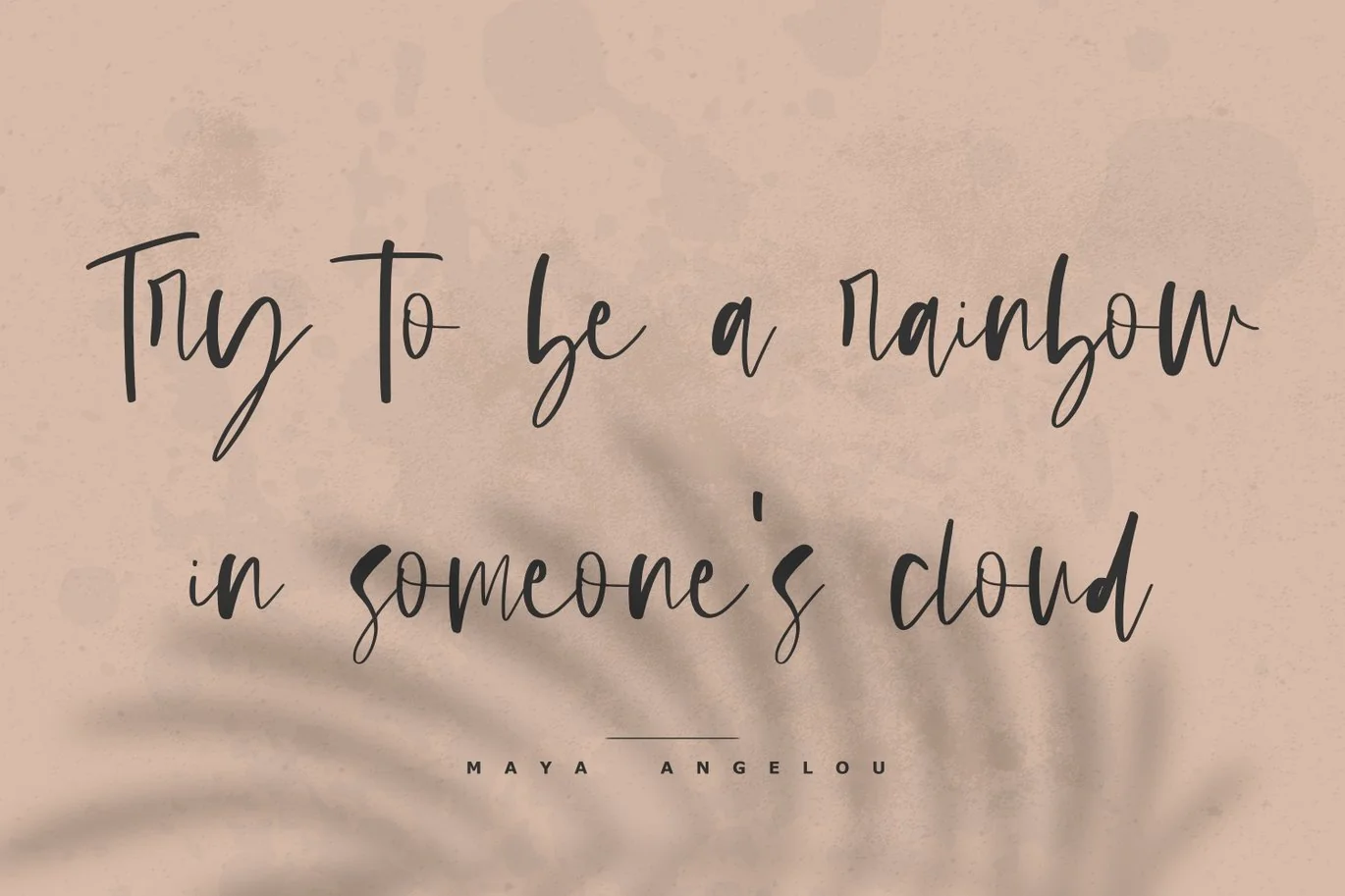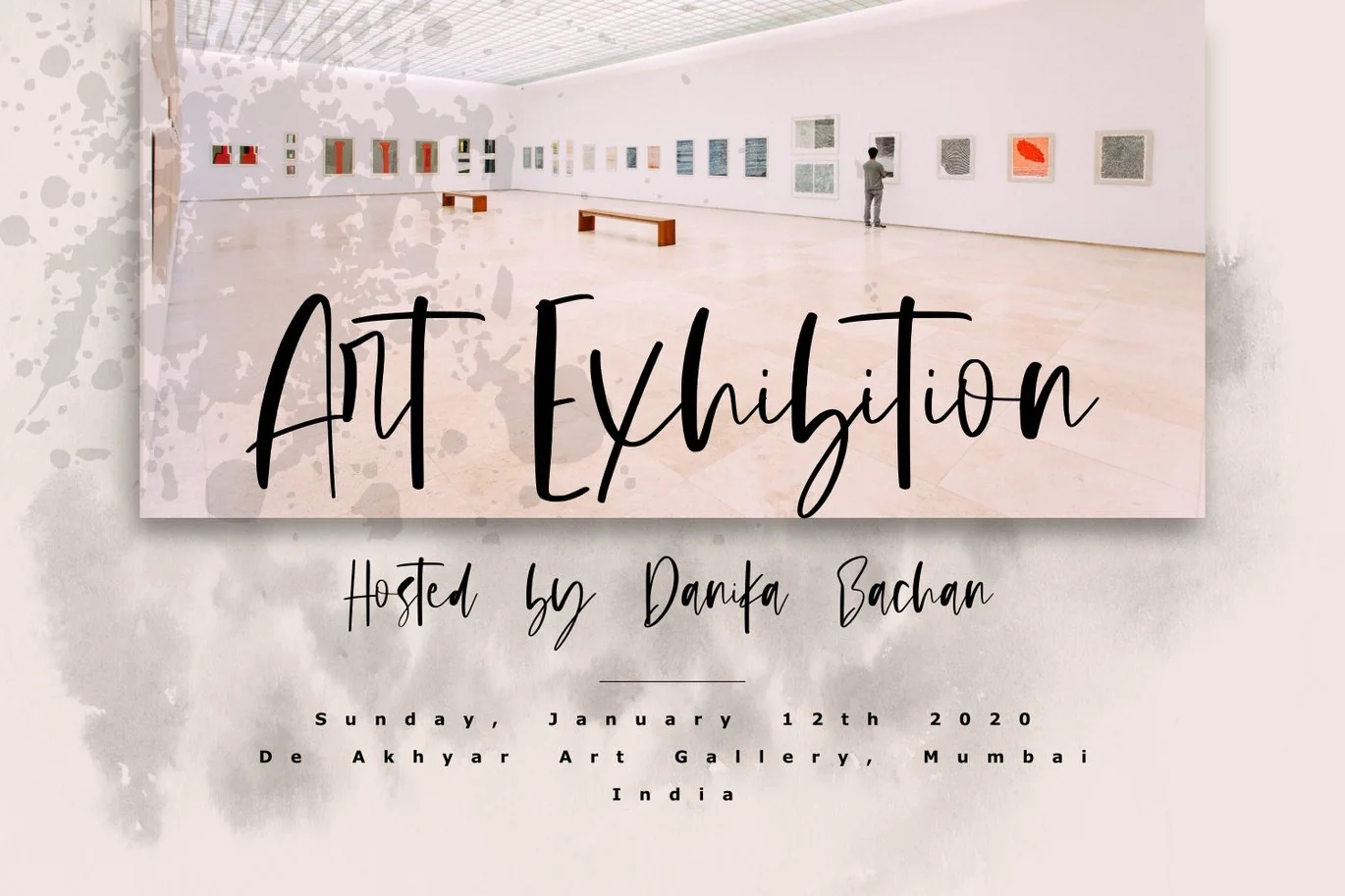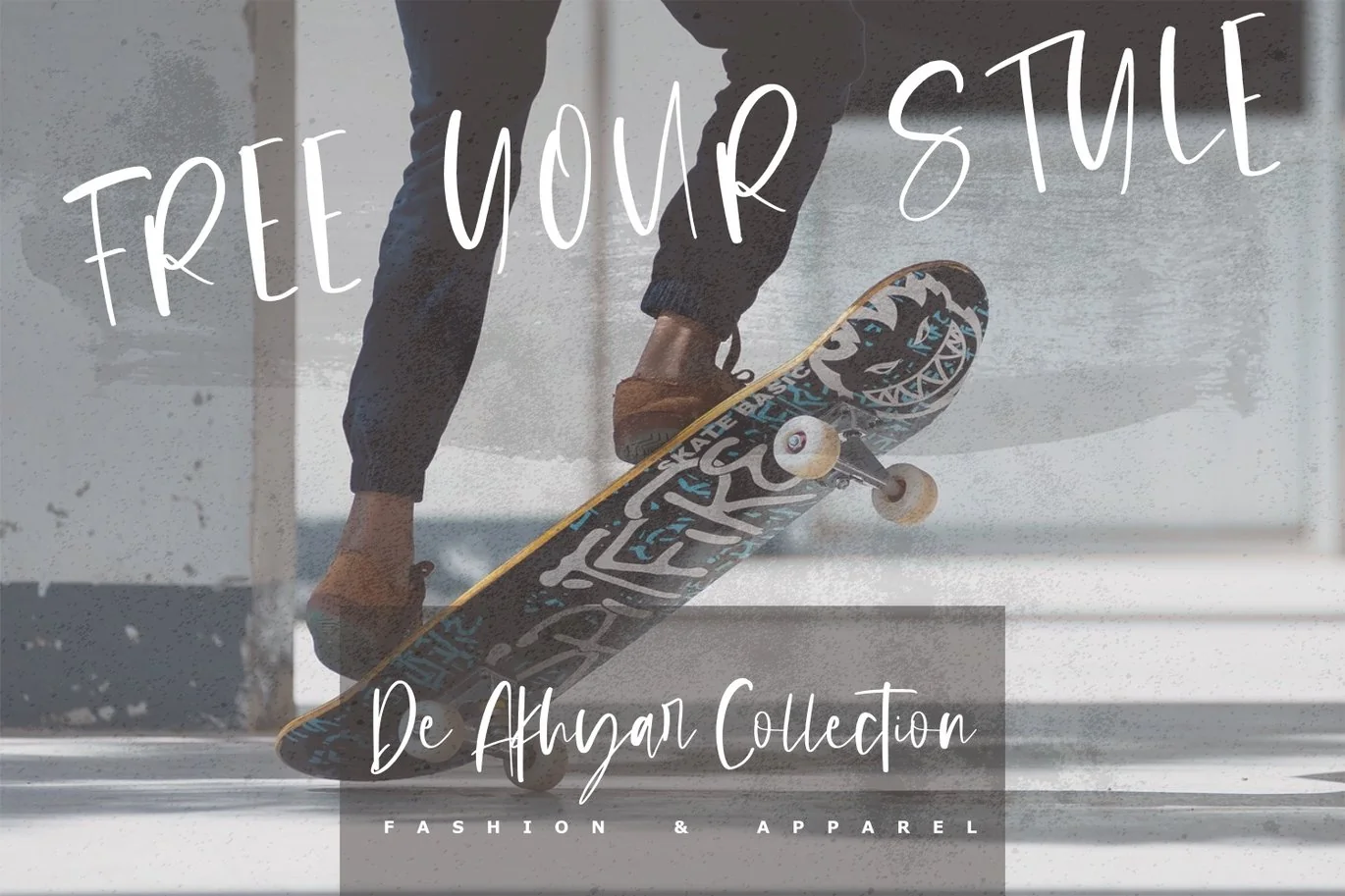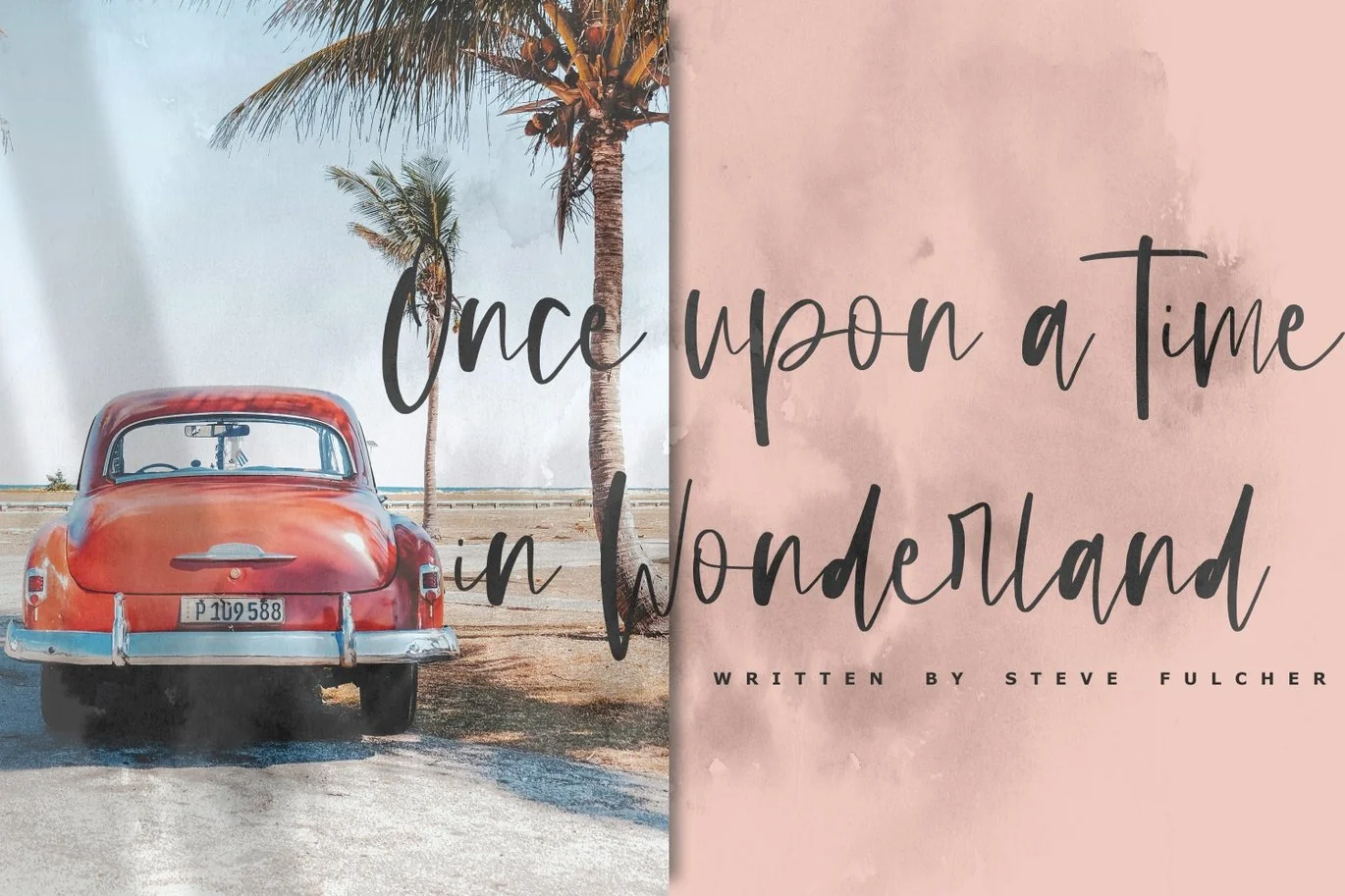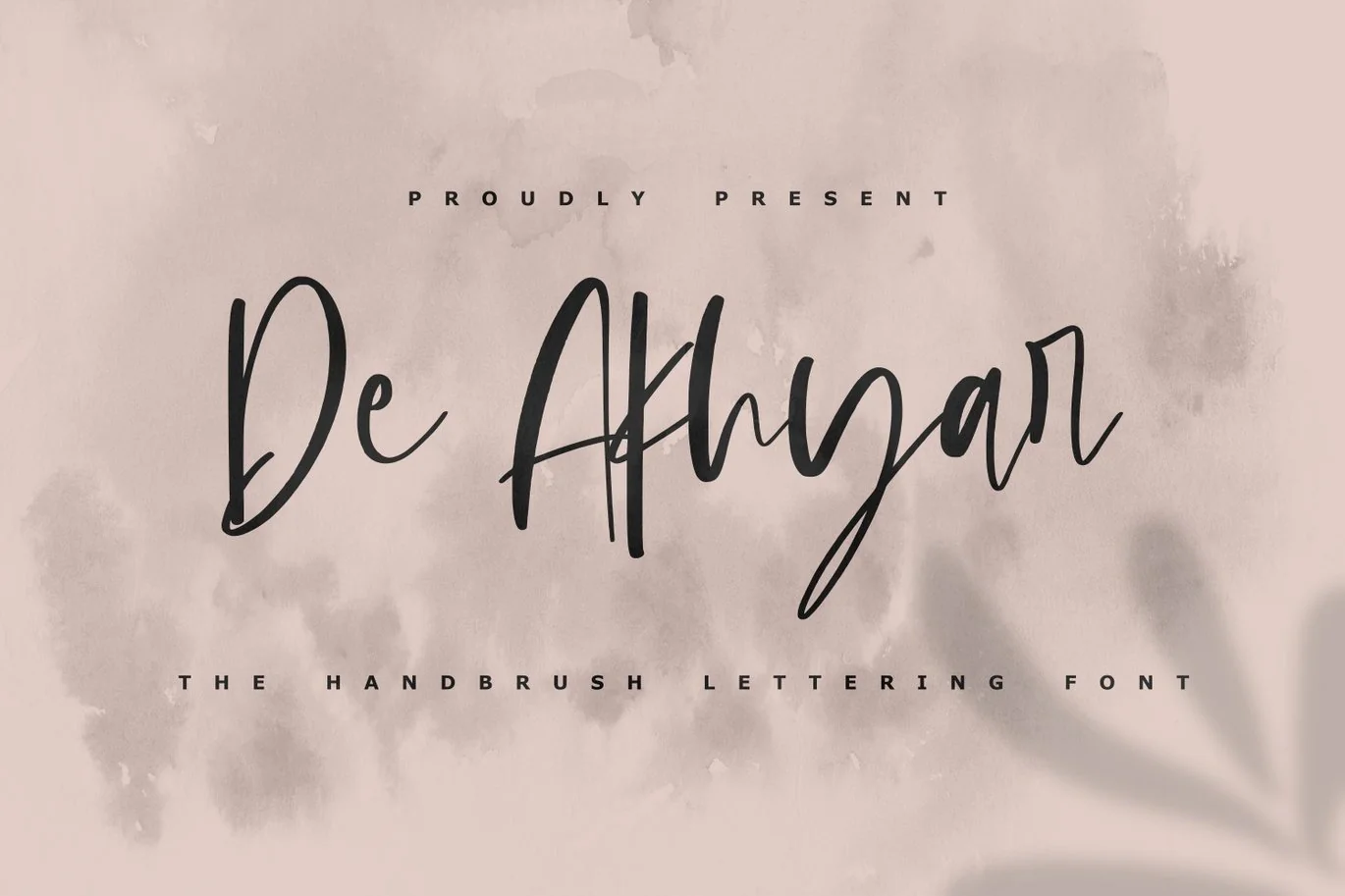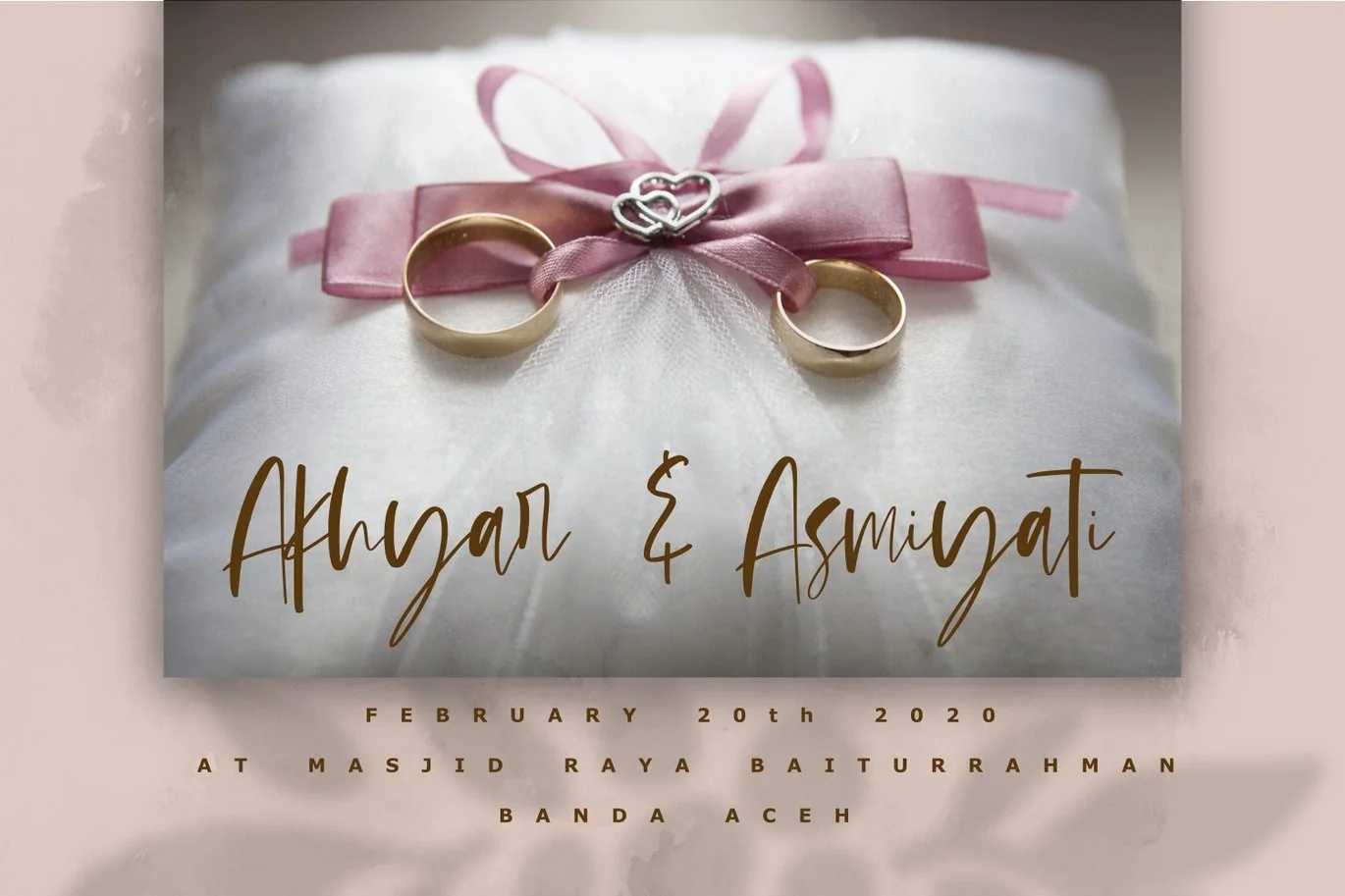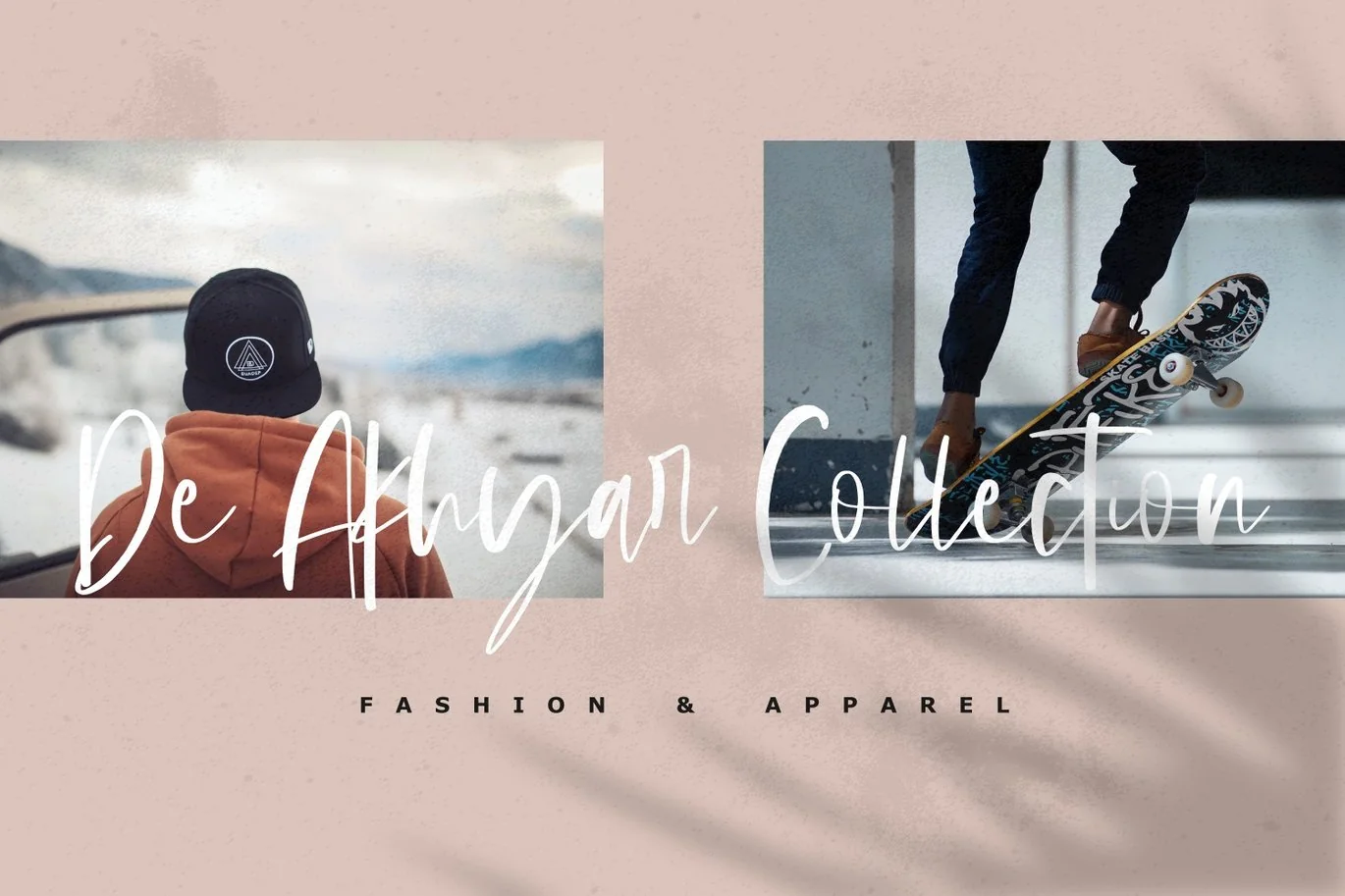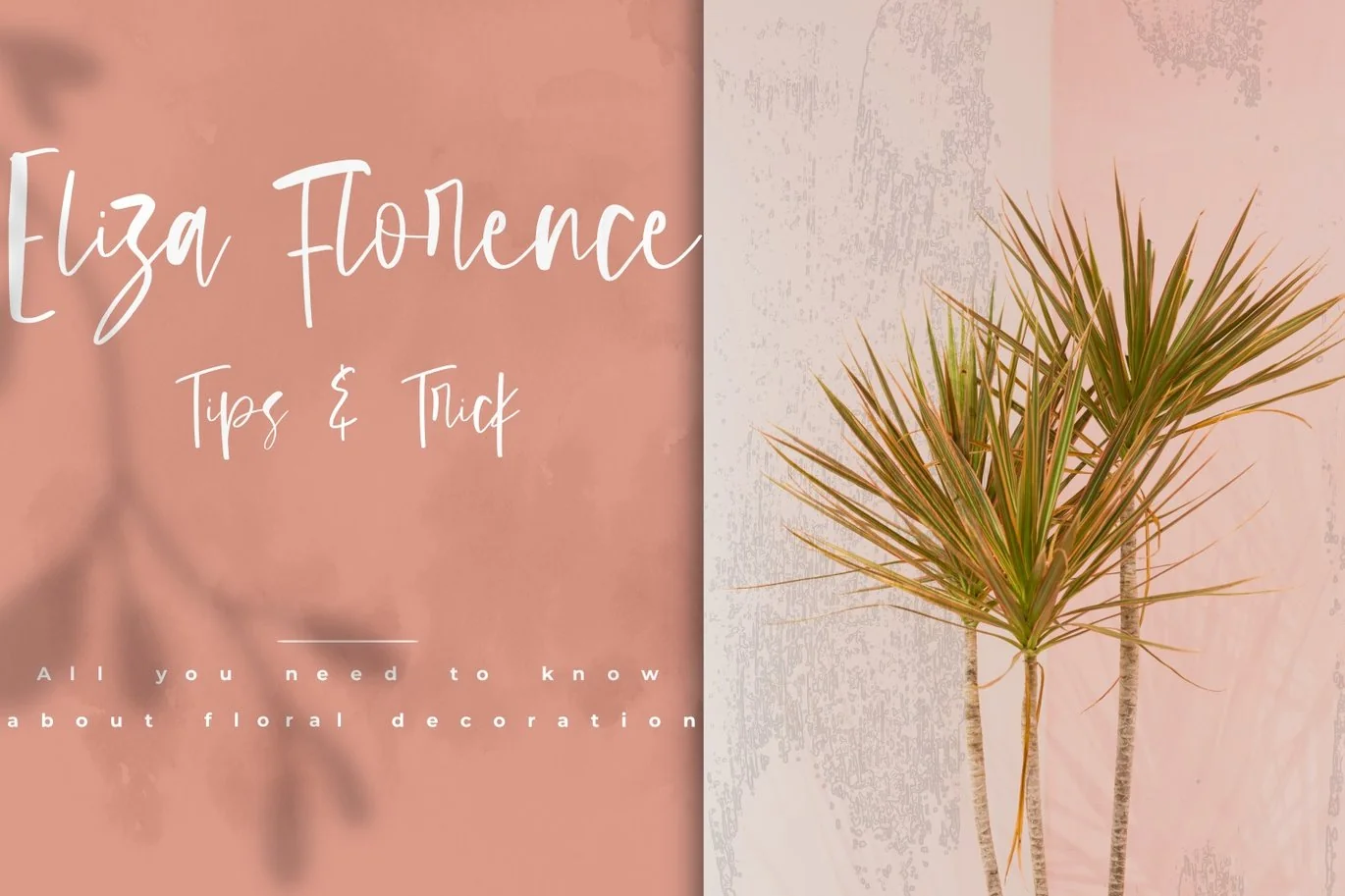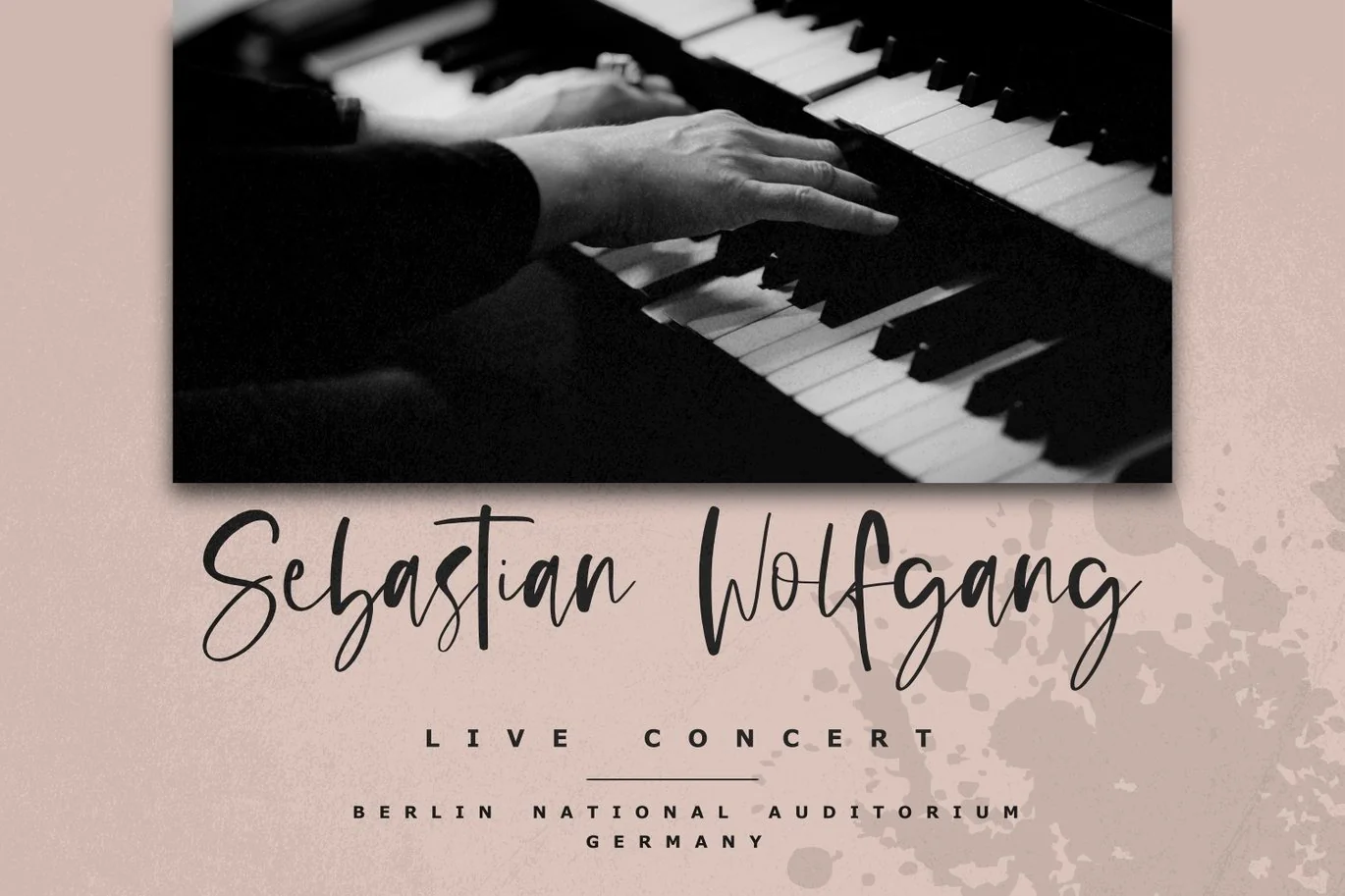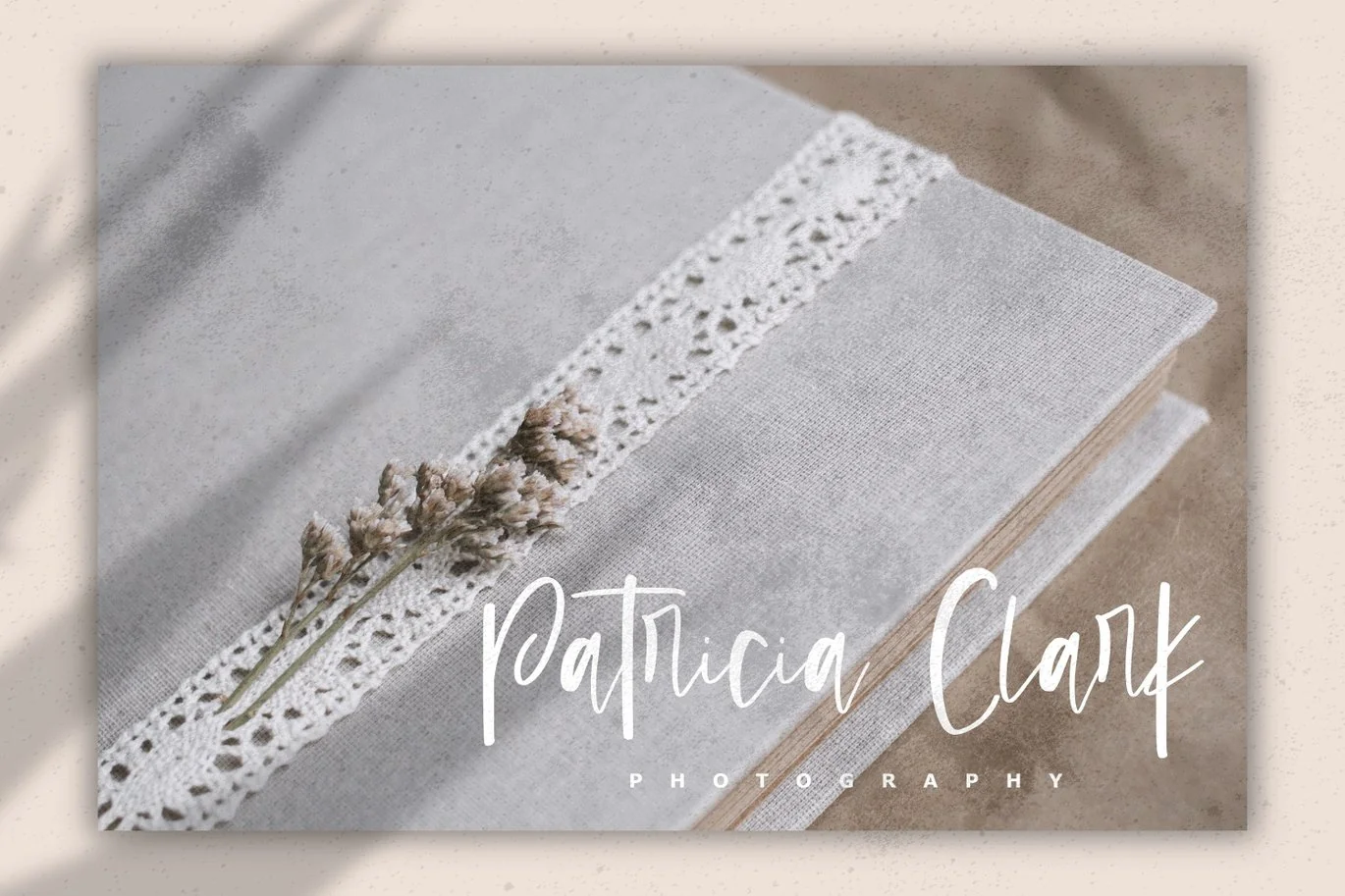
De Akhar – The Handbrush Lettering Font
Introducing De Akhar – The Handbrush Lettering Font. It comes with an elegant and feminine style which is perfect to make any design stand out! This font is perfect for branding, wedding invites, magazines, mugs, business cards, quotes, posters, and more.
De Akhyar Type Features:
- Numerals & Punctuations
- Suitable for Headlines, Logotypes, Signs, Posters, Letterhead, T-Shirt and many more.